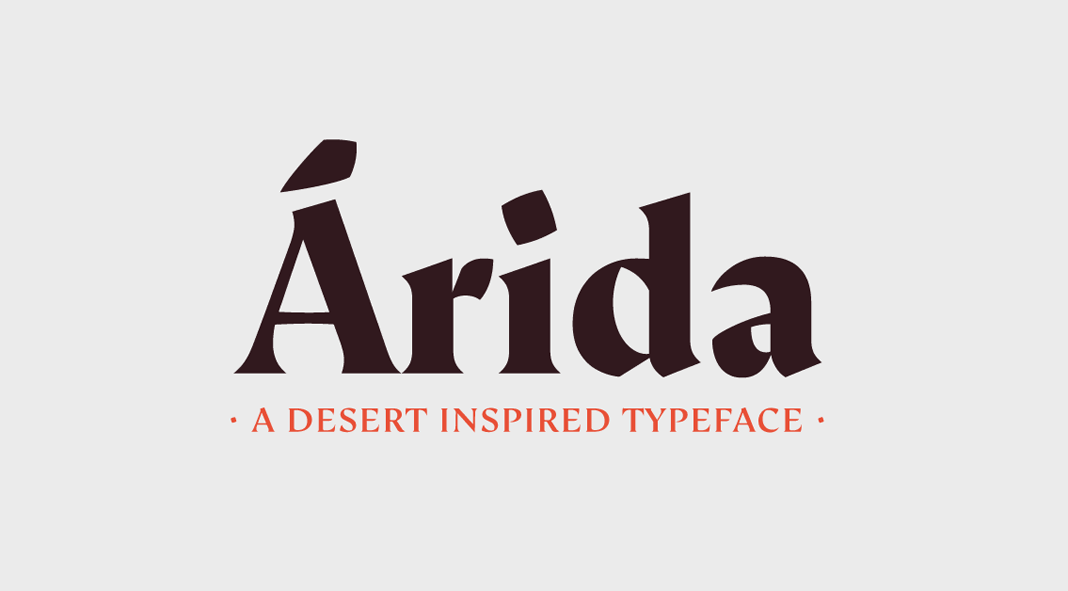
Árida, a desert-inspired font family designed by Alfonso García for foundry Latinotype.
Árida is a font family inspired by the Argentinian city of San Juan, which is located in the semi-desert of Cuyo. With its sharp edges, it pays home to the vegetation of this region. The typeface seems aggressive at large sizes but looks warm and friendly at smaller sizes.
The Árida font family comes in 5 weights ranging from Regular (with a matching Italic version) to Black. Its regular weight contains 773 glyphs while its Italic counterpart is composed of 939 glyphs. Furthermore, the family also includes numerous typographic features such as small caps, different styles of figures, ligatures, stylistic and contextual alternates, among other OpenType features. To learn more, just click on one of the following links.